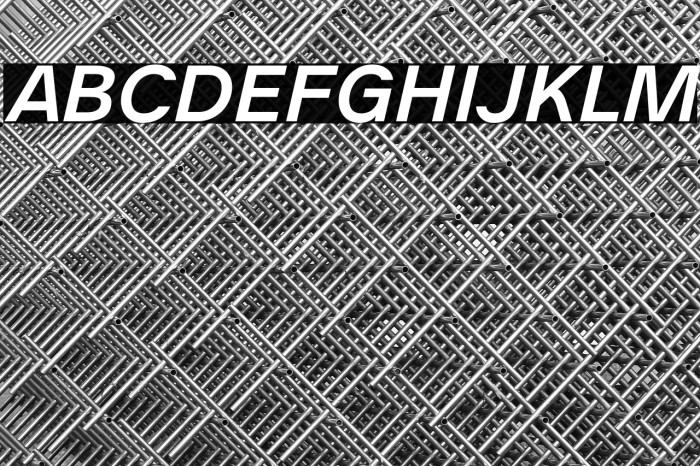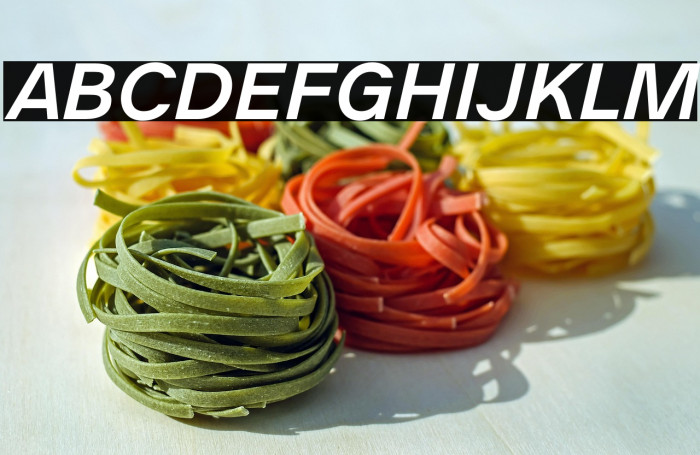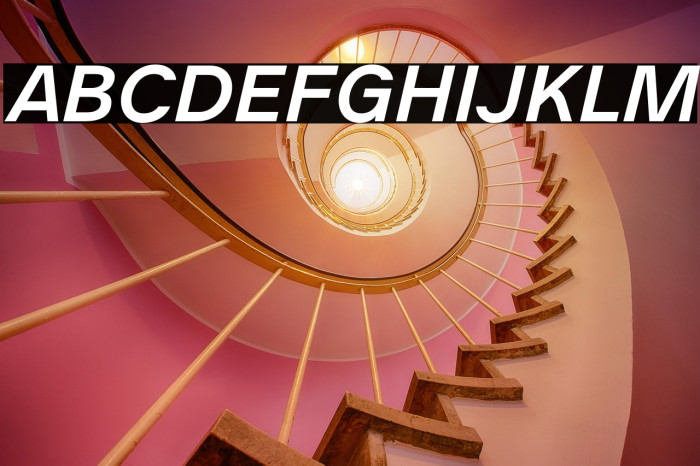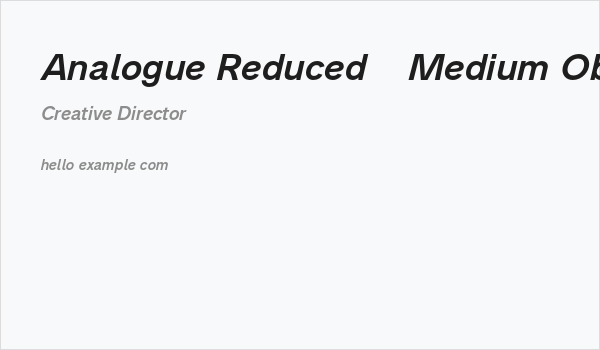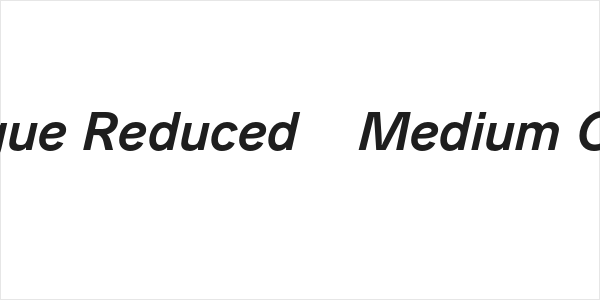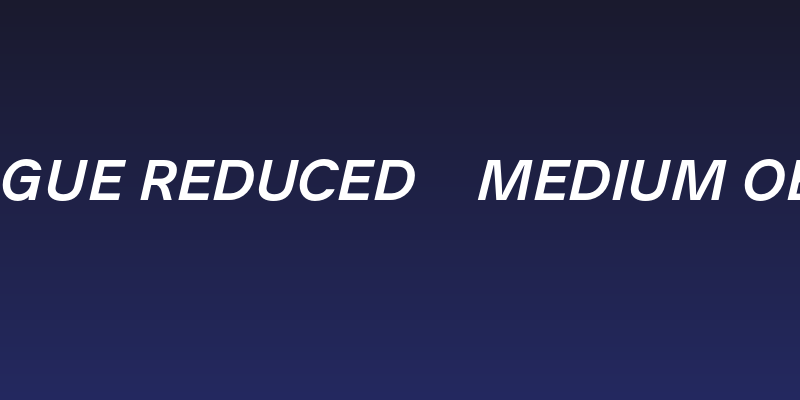
Analogue Reduced 66 Medium Oblique Font
Analogue Reduced 66 Medium Oblique Description
This font features a modern and sleek design with a distinct oblique style, giving it a dynamic and forward-leaning appearance. The characters are well-defined with a medium weight, providing a balanced and readable text. The uppercase and lowercase letters maintain a consistent style, with smooth curves and clean lines. The numerals and special characters are designed to complement the alphabet, ensuring uniformity across all text elements. This font's oblique nature adds a sense of motion and energy, making it suitable for contemporary and creative projects.
| Use Case | Headlines, Logos, Advertising |
| Proposed Projects | Ideal for branding, advertising, and editorial design where a modern and dynamic look is desired. |